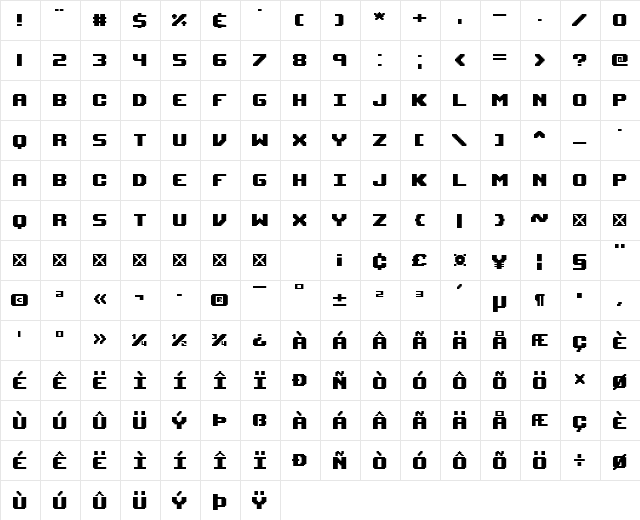
Upheaval TT (BRK) Regular Font Preview
Upheaval TT (BRK) Regular
Upheaval TT (BRK) Regular Font Details
Design Context for Upheaval TT (BRK) Typeface
Upheaval TT (BRK) is a composed and adaptable typeface that performs quietly and consistently across a wide range of design contexts.